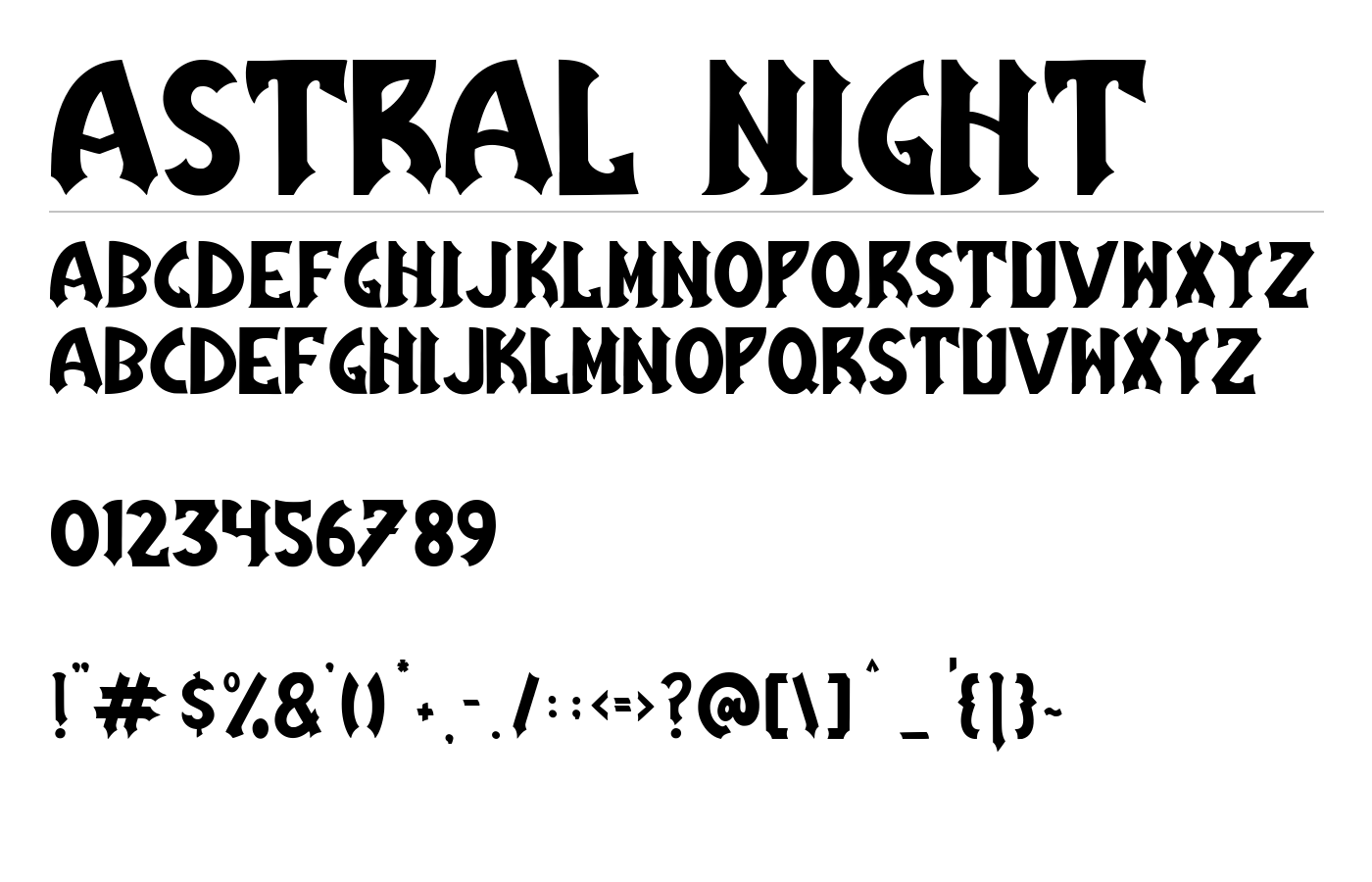
Astral Night is a bold, decorative serif font with a striking Gothic-inspired design that features sharp, dramatic serifs and a high contrast between thick and thin strokes. Its strong, angular letterforms evoke a mysterious, vintage vibe that works beautifully for headlines, logos, or branding looking to convey a dark, mystical, or fantasy-themed atmosphere. This font excels in creating visual impact in posters, packaging, and creative projects where a bold, unique style is essential.
Astral Night Font
About Astral Night Font
| Font family | Astral Night Font |
| Designer | Arendxstudio |